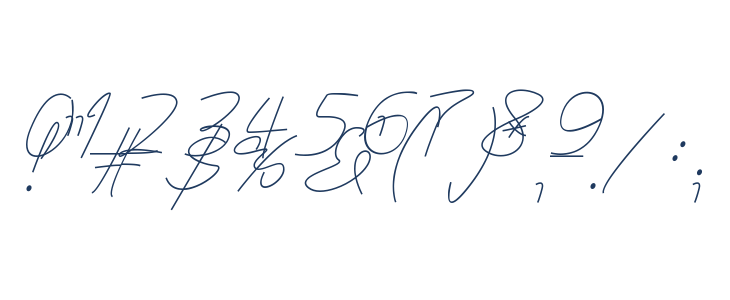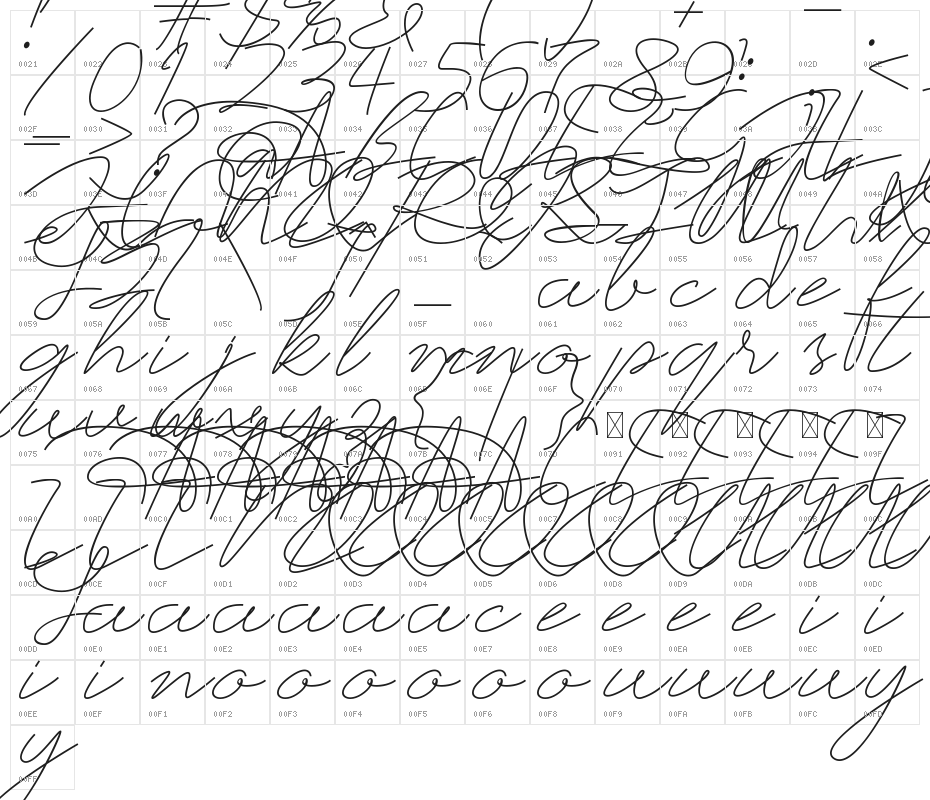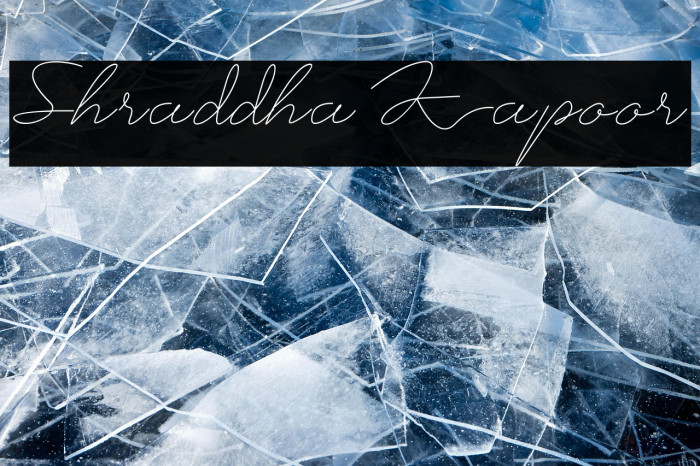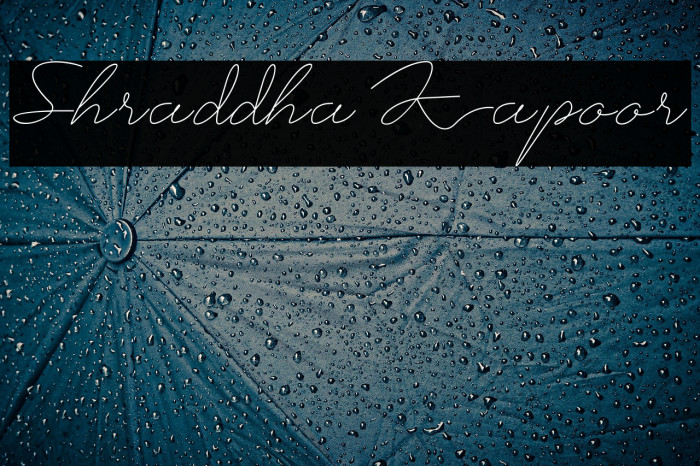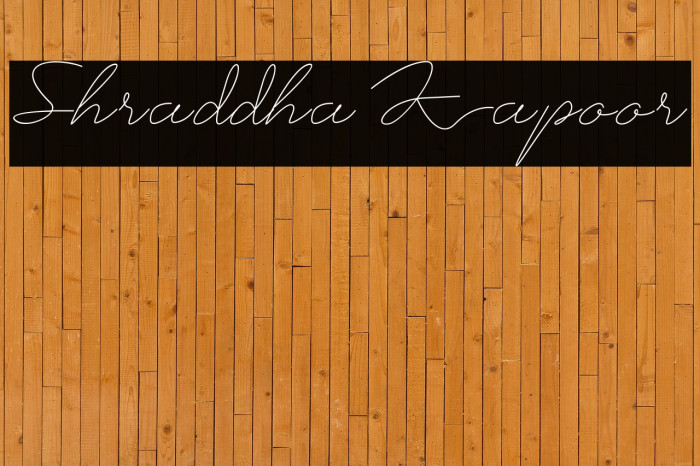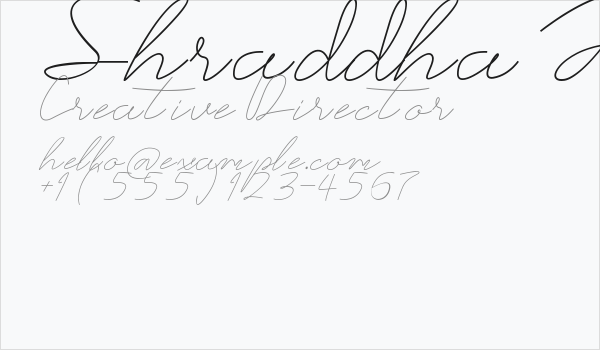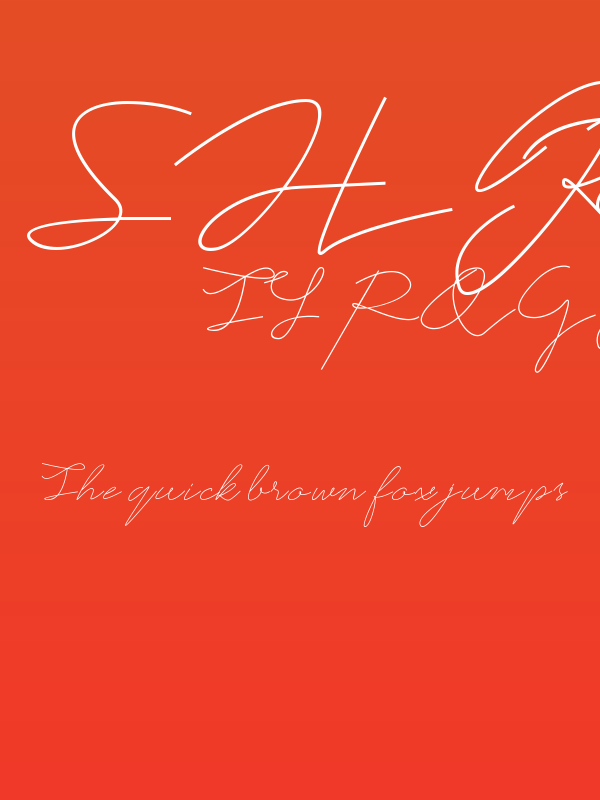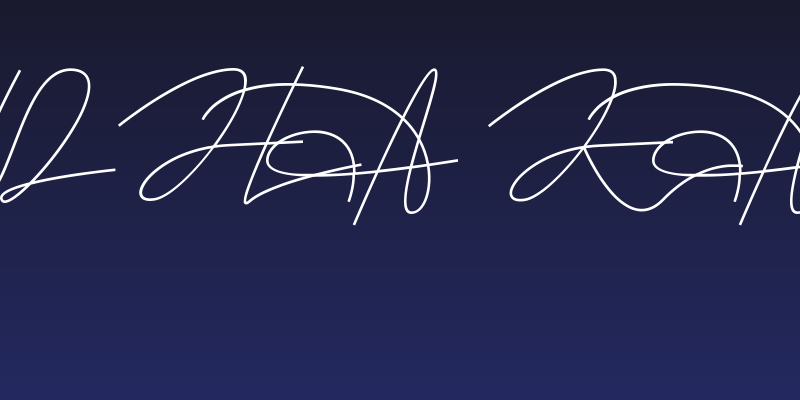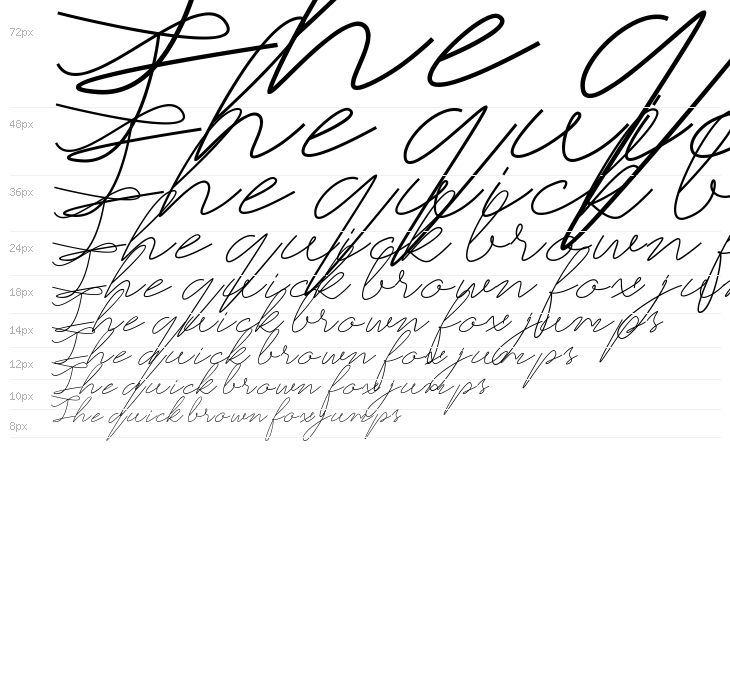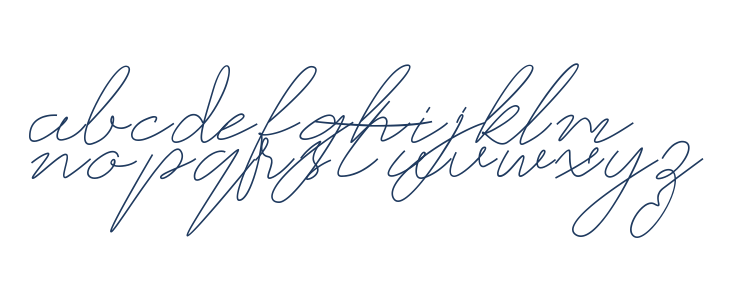
Shraddha Kapoor Font
Shraddha Kapoor Description
This font is a beautifully crafted script typeface that exudes elegance and fluidity. The characters are connected with smooth, flowing lines that mimic the natural motion of handwriting. Each letter is carefully designed with a consistent stroke width, giving the font a harmonious and balanced appearance. The uppercase letters are slightly more ornate, with subtle flourishes that add a touch of sophistication. The lowercase letters maintain a graceful simplicity, making the font versatile for various applications. The numerals and special characters are designed to complement the overall style, ensuring a cohesive look across all text elements.